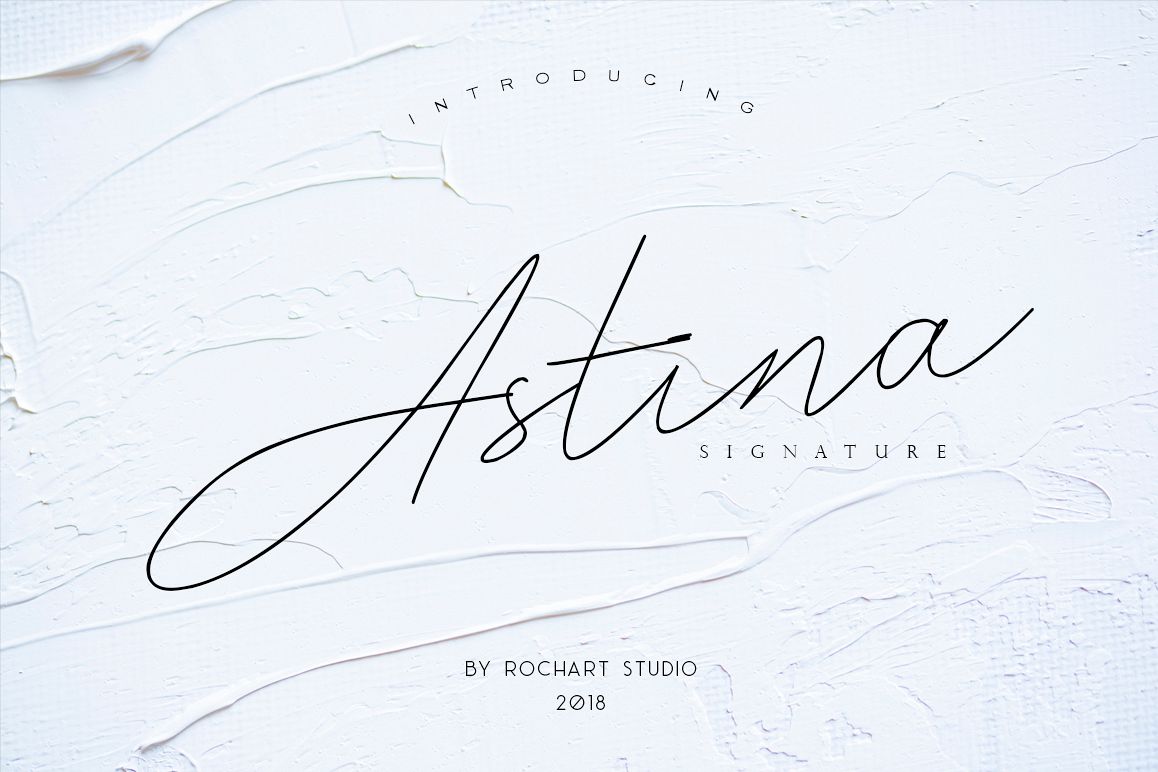
Astina
We introduce our new product called Astina signature.
The Astina signature is a modern Handlettering font. Astina signature has a multilingual Support.
Astina signature is great for logotype, Branding Design, Logo Design, Digital Lettering Arts, T-Shirt/Apparel, Poster, Magazine, Signs, Advertising Design, wedding invitation and any hand lettered needs.
Astina signature Features:
Upper and Lowercase Standard Characters, Punctuation, Numerals PUA Encoded Characters – Fully accessible without additional design software. Includes a range of multilingual characters.